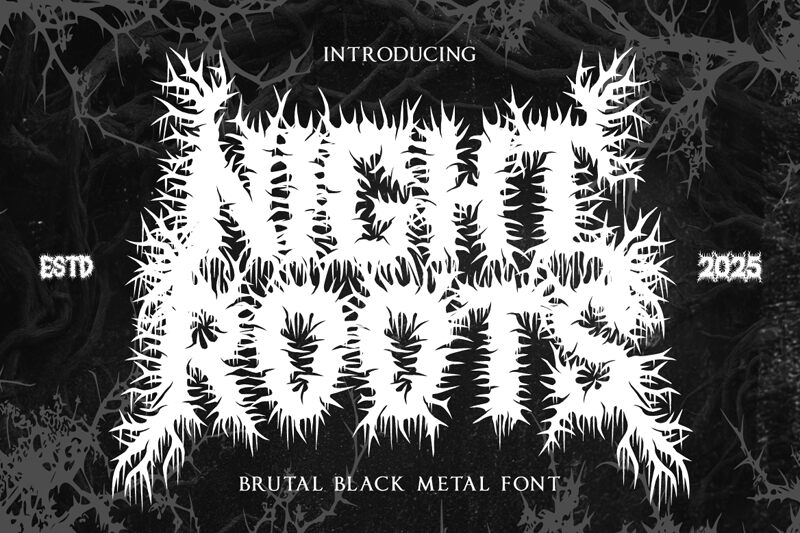
Night Roots font family is a sharp and aggressive twin-typed free font family of a Gothic style. Designed by PutraCetol Studio, the font appears chaotic and intense with jagged shapes that articulate the dark energy running through it. It features visually complex forms that are both edgy and intimidating. It could suit all kinds of dramatic, horror, or rebellious styles of projects.
Explore the energetic and impactful letters crafted perfectly for a contemporary world. Use the font for your album covers, typography art, branding design, band tour posters, music festival announcements, social media posts, website headers, movie posters, book designs, or magazine covers and layouts. Night Roots produces the long-missed gothic effect that all dark brands need to display.